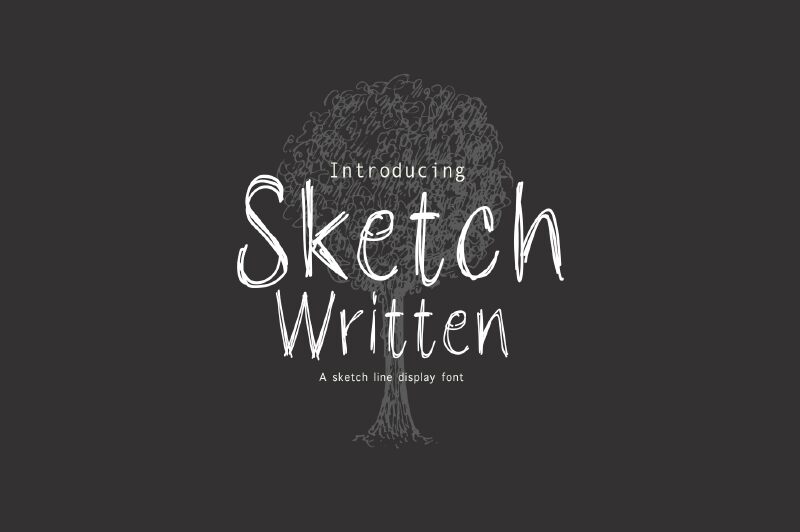
Sketch Written, a captivating script font crafted by Tera Asset Garage, exudes a raw, edgy charm that instantly commands attention. This dynamic typeface boasts an organic, hand-drawn aesthetic, with each stroke and line reflecting a sense of spontaneity and energy. The font's unrefined, "trash" style lends it a distinct personality, evoking a sense of rebellious creativity and artistic expression.
Sketch Written's versatility shines through, making it a compelling choice for a wide range of design projects. Its striking visual presence lends itself well to branding, packaging, and promotional materials, where it can elevate the overall aesthetic and convey a bold, unconventional message. Additionally, the font's expressive qualities make it an ideal selection for editorial design, event invitations, and even personal correspondence, where it can infuse a touch of stylish individuality.